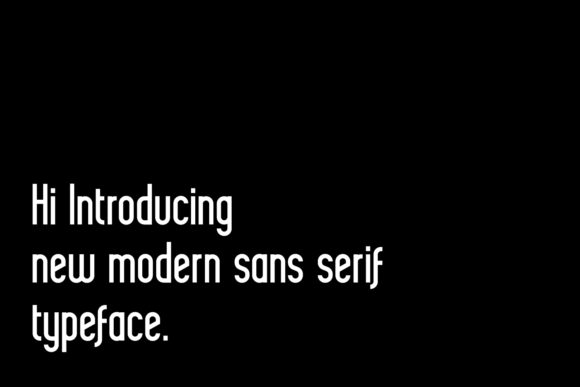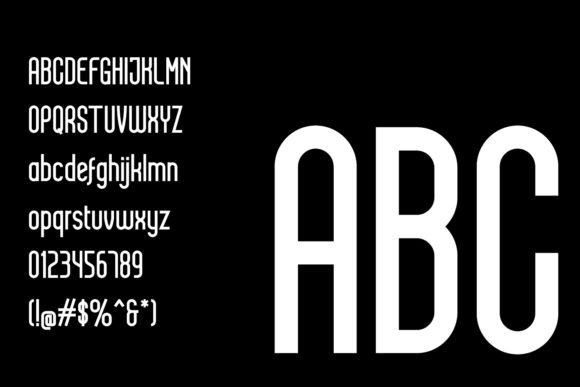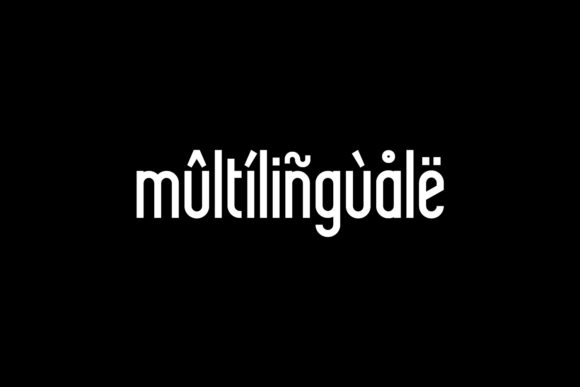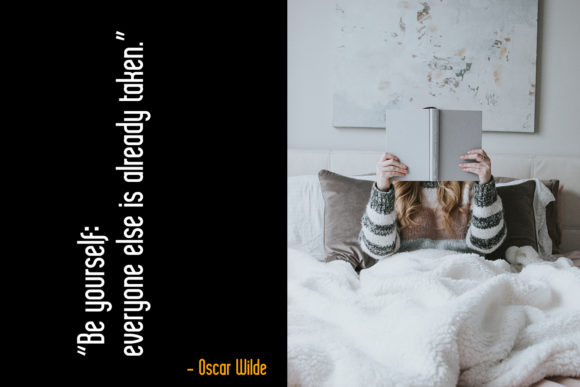
Introduction to Delvon Font
As a designer, you know the rush of excitement that comes with discovering a new font that perfectly captures the essence of your creative project. For me, it was a late-night design session, struggling to find the right sans serif font to complement my transparent background. That’s when I stumbled upon Delvon Font – a simple, yet elegant typeface that immediately caught my eye.
Delvon Font is more than just a pretty face; it’s a valuable resource for designers seeking a clean and versatile font that can elevate any design. With its neat arrangement of letters, Delvon Font exudes a sense of professionalism, making it perfect for both formal and non-formal designs. Whether you’re working on a high-quality branding project or a personal creative endeavor, Delvon Font is an excellent addition to your design toolkit.
Key Features of Delvon Font
- High-quality design resource with a unique, creative style perfect for various projects.
- Delvon Font features a transparent background, making it ideal for creative projects that require a clean and minimalist design.
- Delvon Font is available in a single weight, but its versatility makes it suitable for a wide range of creative projects, from logos to body text.
Honest Review: Delvon Font
I recently stumbled upon the Delvon Font, and I must say it’s a hidden gem in the design resource pool. This free download has caught my attention for its versatility and uniqueness.
- The Delvon Font boasts a wide range of creative possibilities with its various styles and weights.
- The high-quality design ensures a smooth and professional look in any project.
- The transparent background allows for effortless layering and customization.
- The font is well-suited for various creative projects, from branding to editorial content.
- The font may not be ideal for body text due to its decorative nature.
- The lack of extensive language support might be a drawback for some users.
Overall, the Delvon Font is a valuable addition to any designer’s toolkit. Its unique style and high-quality design make it perfect for creative projects that require a touch of elegance and sophistication. I’m excited to experiment with this font and see how it elevates my designs.
The Delvon Font is a versatile, high-quality design resource ideal for a wide range of creative projects. With its transparent background and sleek design, it’s perfect for adding a touch of sophistication to your work.
Tips for Getting the Most Out of Delvon Font
Experiment with different font sizes, colors, and combinations to achieve the desired look. Use the transparent background to create a sense of depth and dimension.
The Delvon Font is ideal for various creative projects, including:
- Infographic design
- Business card design